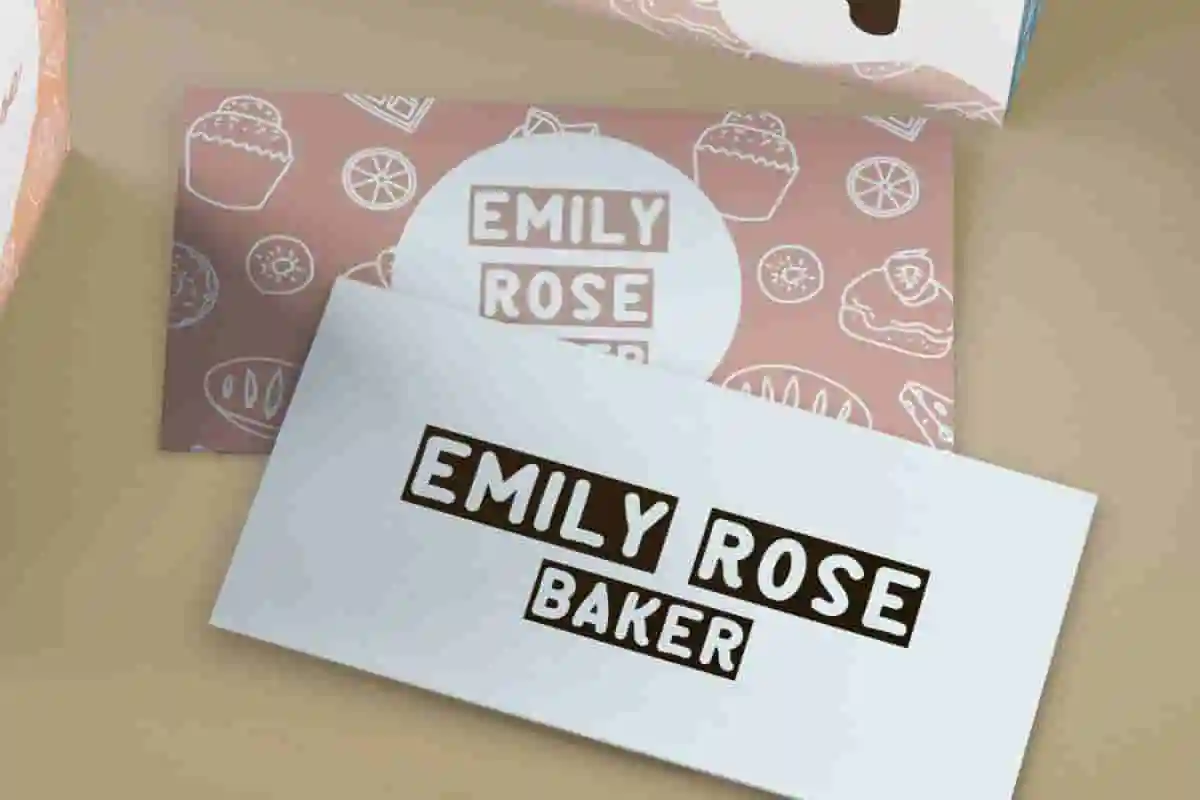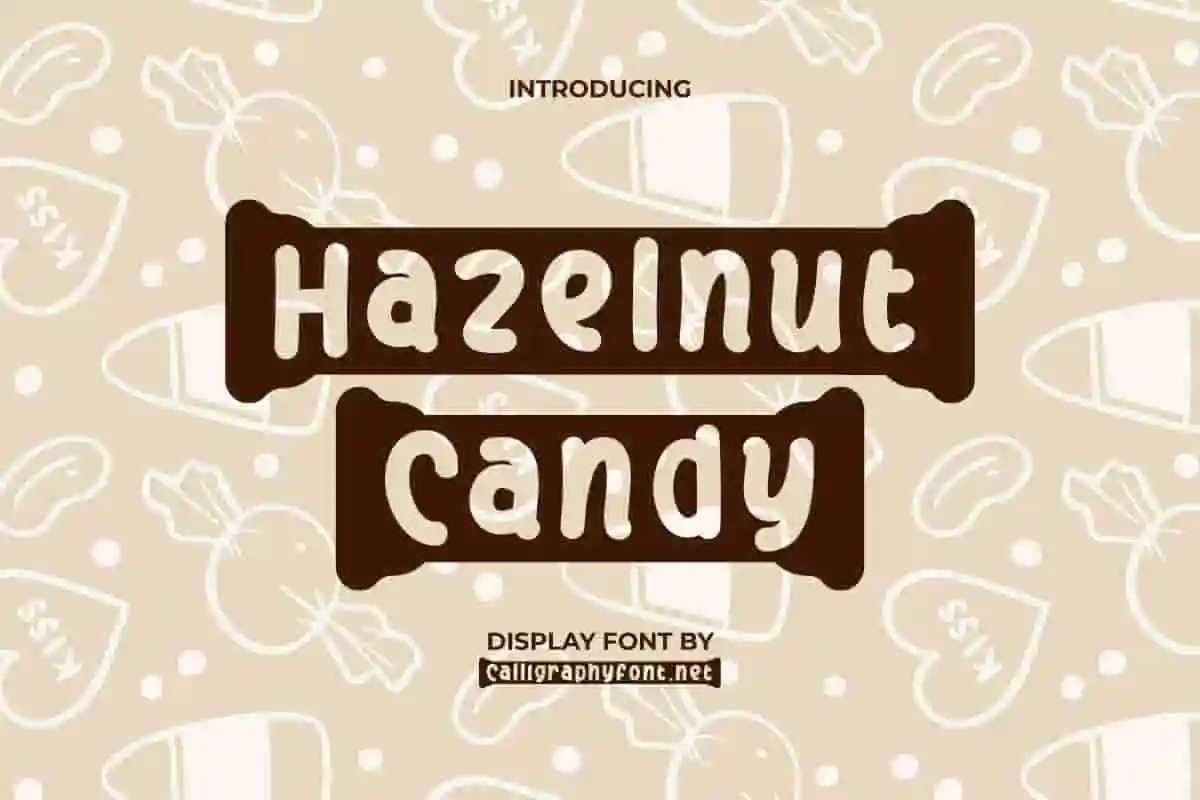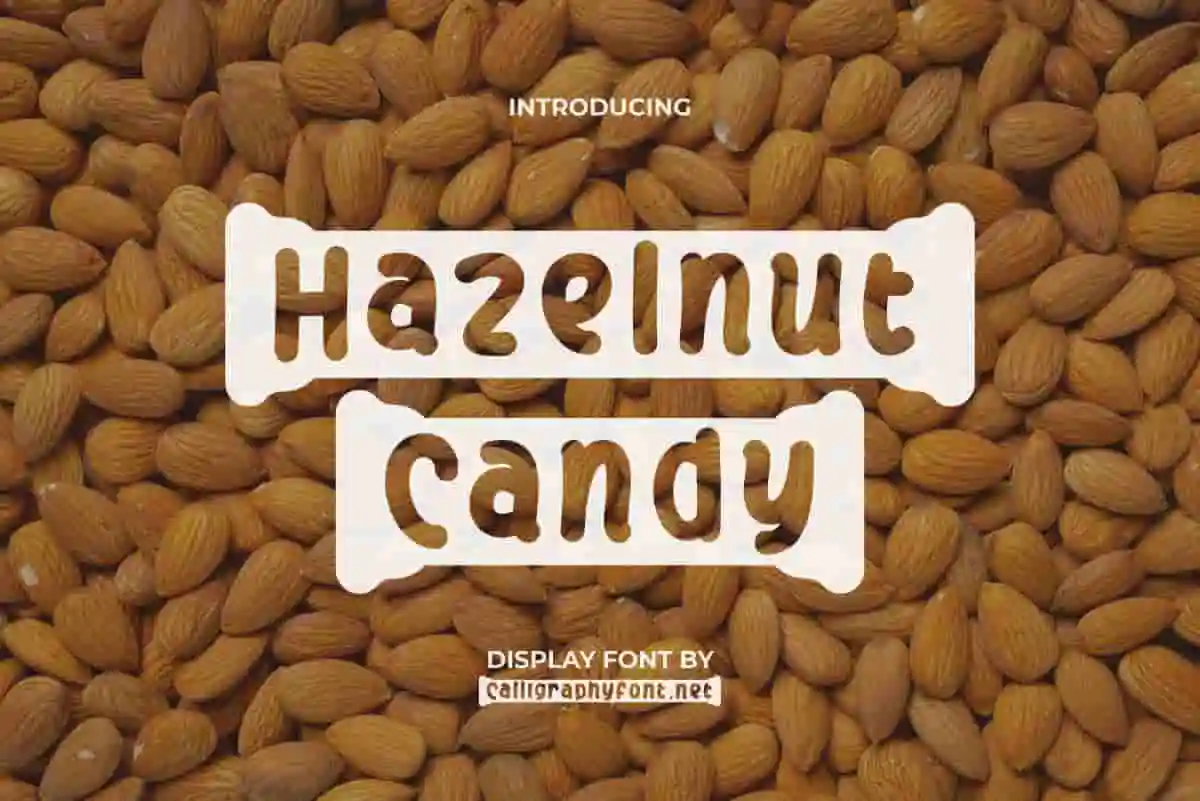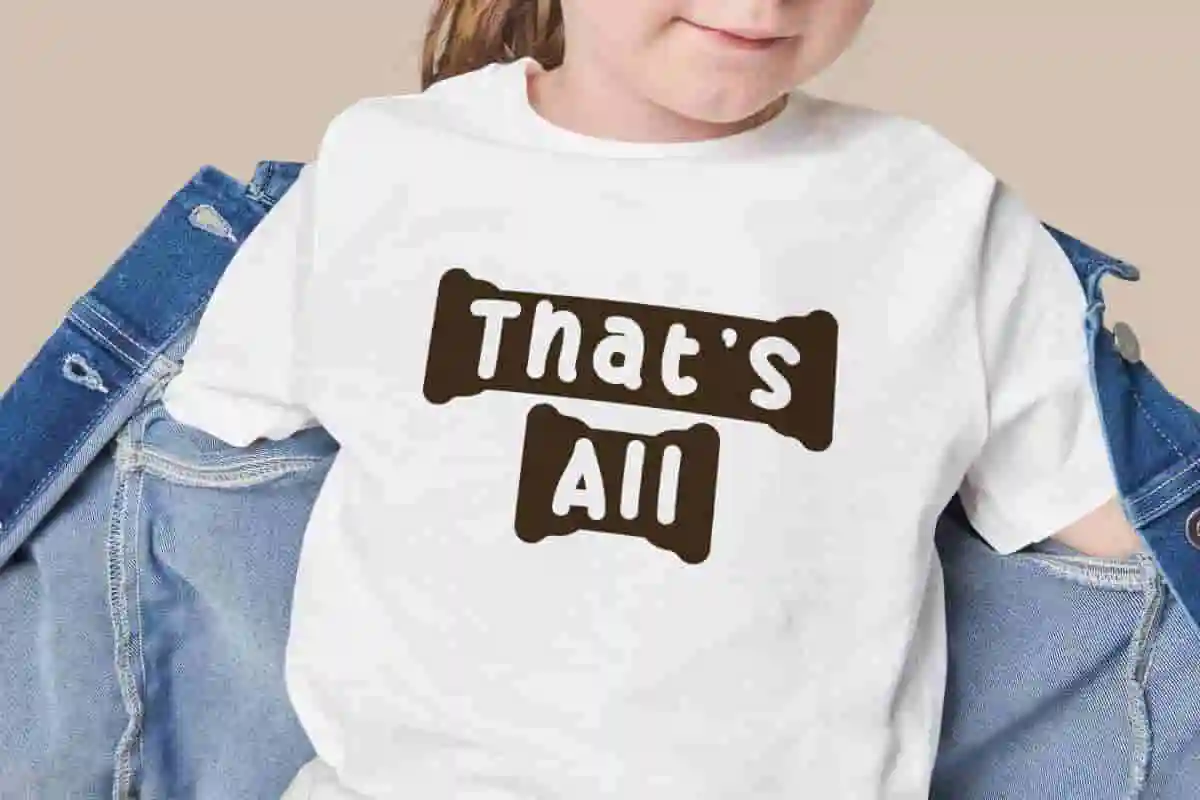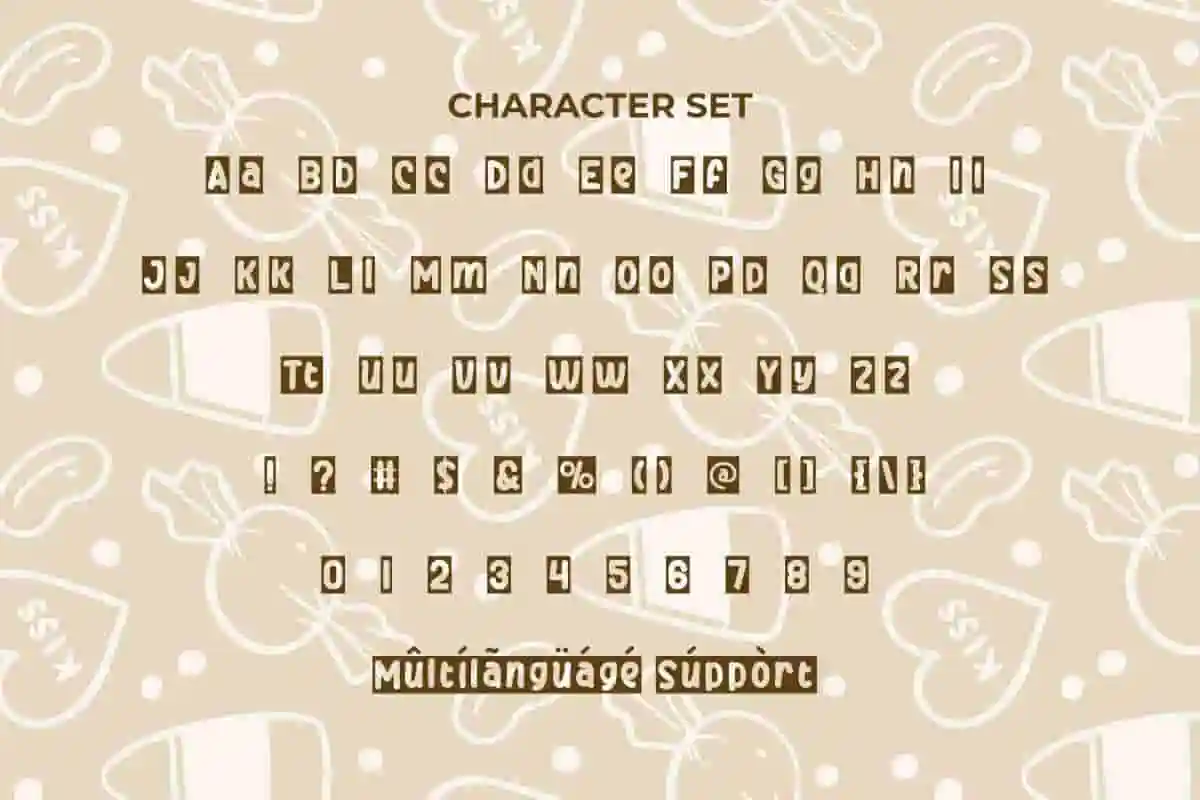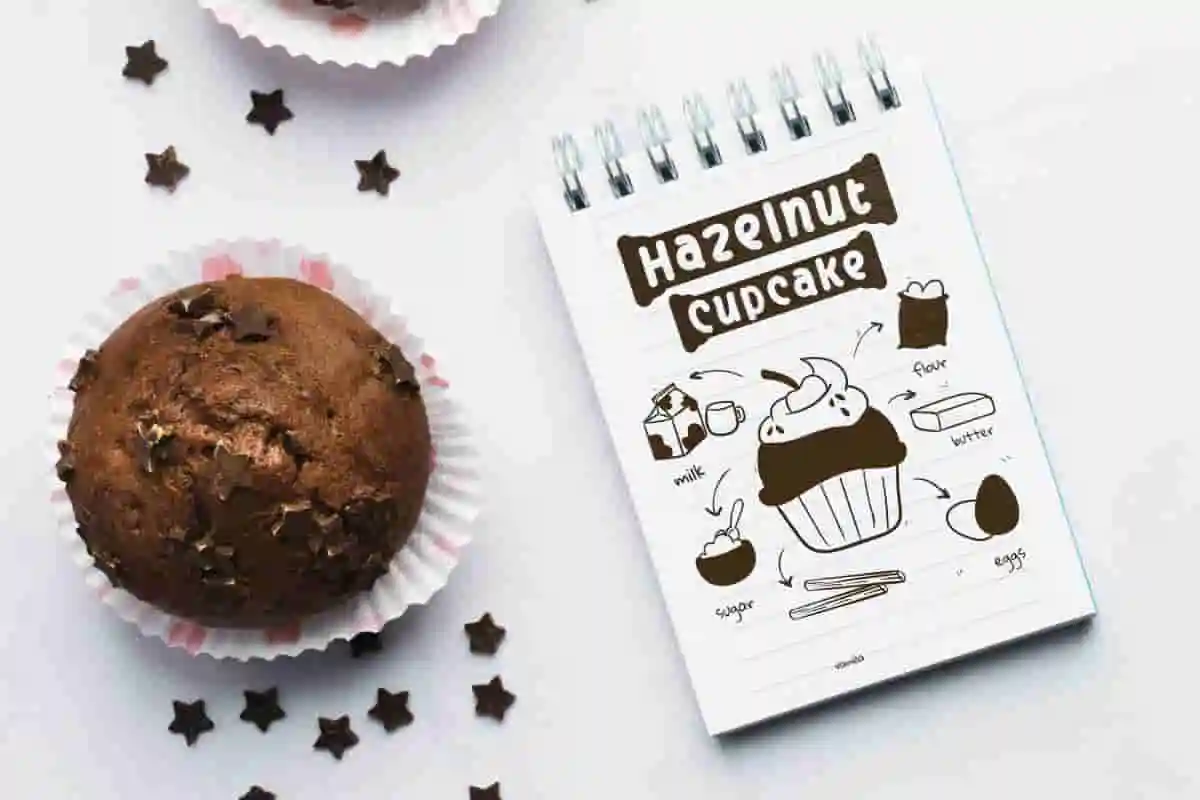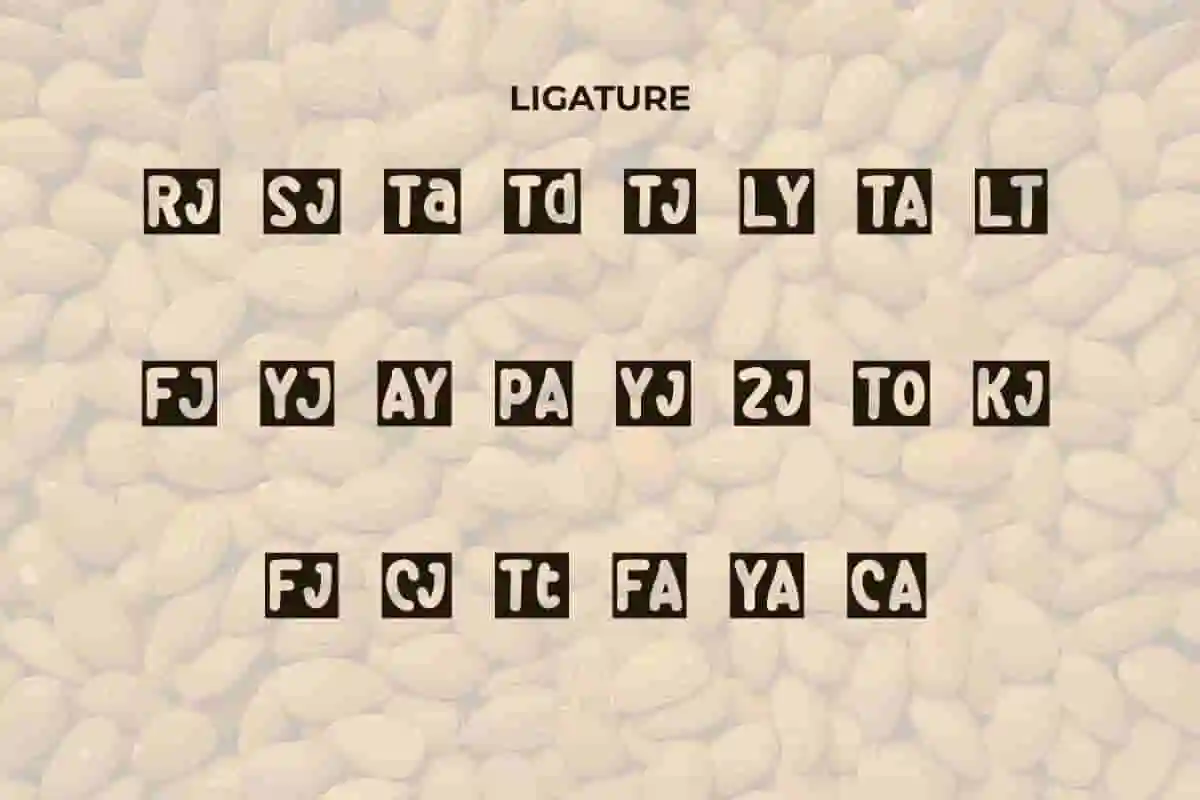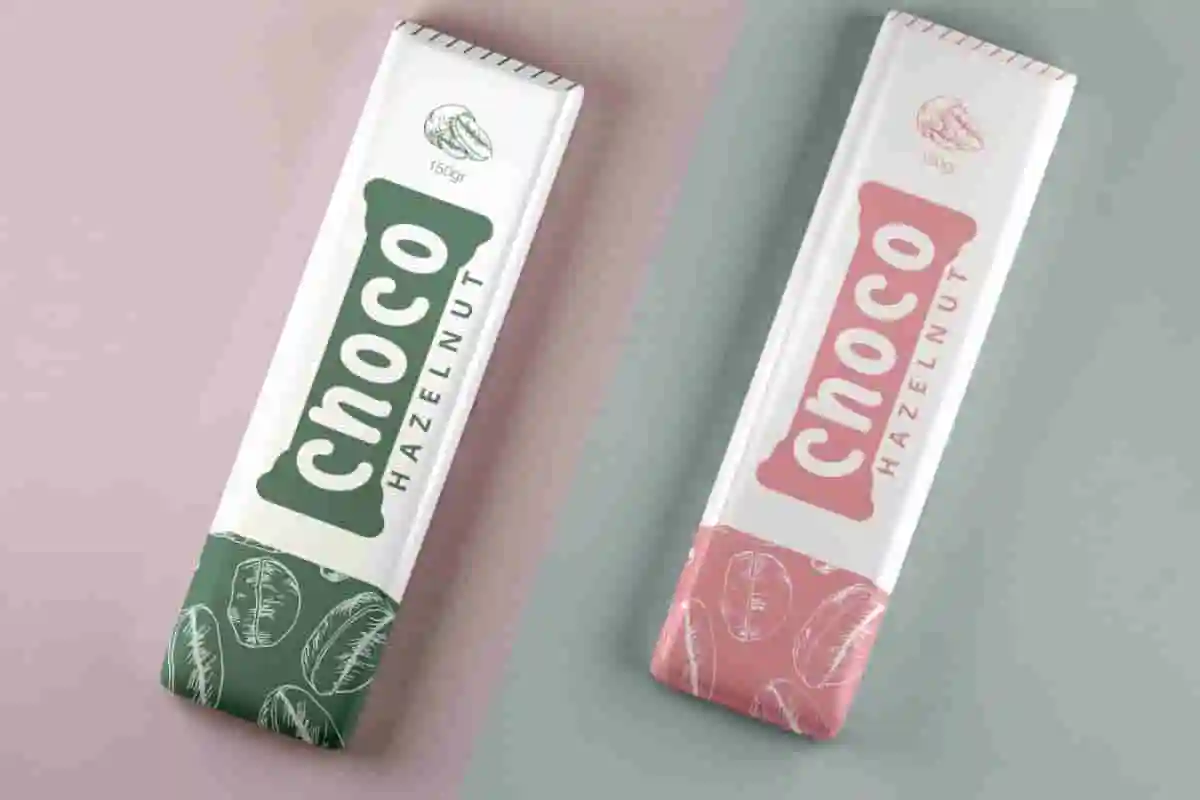
Hazelnut Candy Font
Hazelnut Candy Font is a cute puffy display font that sweetly exudes joy. It will be great for bakery, brand logo, business card, cooking class, header, kids fashion, screen print, shop selling sweet things, and other things related to the adorable look.
Hazelnut Candy Font is a playful display font with a unique shape, created by CalligraphyFonts. This font has cute rounded letter shapes inspired by hazelnuts and other sweet things so it’s fun and perfect for any creative project, such as billboard, brand logo, brochure, business card, cover, header, invitation, label, packaging design, poster, quotes, screen print, stationery, sticker, website, and much more.
Hazelnut Candy Font is an adorable child type font and a great choice for use as main text or paired with other font types. It’s great for any industry, including: accessories, advertisement, author, bakery, children’s events or parties, candy shop, chocolate product, cooking class, education, handicraft, interior design, kids fashion, kindergarten, library, photography, printing, publishing, restaurant, toy store, etc.
Hazelnut Candy Font comes with a full set of Uppercase and Lowercase Basic Characters, Number, a large range of Punctuation and Symbol. It also comes with ligature and alternate characters which enhance the font. In order to use alternative characters, usually we just need to block the end letters and select alternative letters on glyphs option. It is supported with multilingual characters and ready to use both on Windows machine or Mac with simple installations. It’s tested to work well in the Adobe Apps (Illustrator, Adobe InDesign, Adobe Photoshop) CorelDraw, and others. PUA Encode Characters means you can access all the characters easily – Fully accessible without additional design software.